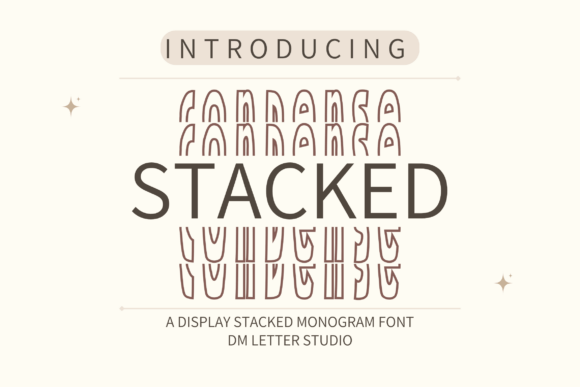
Unleash Timeless Elegance with the Condense Stacked Monogram Font
As a designer, there’s nothing quite like the thrill of discovering a new font that can elevate your projects to the next level. It’s that moment when the perfect combination of style and sophistication comes together, and you know you’ve found something special. For me, that moment arrived when I stumbled upon the Condense Stacked Monogram Font – a slim, chic, and effortlessly elegant typeface that’s been a game-changer for my designs.
This versatile font is expertly crafted to create compelling monogram impressions, making it an ideal choice for everything from wedding stationery to high-end fashion branding. With its streamlined formations and slender width, the Condense Stacked Monogram Font brings a unique touch of stacked elegance to any design project. Whether you’re looking to infuse a dash of timeless sophistication or add a touch of luxury to your branding, this font is sure to impress.
Condense Stacked Monogram Font Key Features
- Unique Stacked Monogram Design: This font features a unique stacked monogram design, where each letter is stacked on top of the other, creating a visually appealing and elegant effect.
- Condensed Style: As the name suggests, the Condense Stacked Monogram Font has a condensed style, making it perfect for use in situations where space is limited, such as in business cards, letterheads, and other promotional materials.
- Legibility and Readability: Despite its condensed style, the font remains highly legible and readable, making it suitable for use in a wide range of applications, from body text to headings.
- Scalability: The font is highly scalable, allowing it to be used in a variety of sizes and resolutions without compromising its quality or legibility.
Designer Review: Condense Stacked Monogram Font
Overall, I think the Condense Stacked Monogram Font is a decent choice for those looking for a unique and modern monogram font. ✨ One of its strengths is its versatility – it can be used for a wide range of applications, from wedding invitations to business logos.
Another advantage is its clean and minimalist design, which makes it easy to read and understand. The stacked monogram layout also adds a touch of elegance and sophistication, making it perfect for formal events or high-end brands.
- Unique and modern design
- Versatile and can be used for various applications
- Easy to read and understand
- Stacked monogram layout adds elegance and sophistication
However, there are some limitations to consider. ⚠️ The font may not be suitable for very small text sizes, as the stacked monogram layout can become difficult to read. Additionally, the font may not be as customizable as some users would like, which could limit its use in certain design applications.
Overall, I would give the Condense Stacked Monogram Font 3.5 out of 5 stars. While it has some great features and can be a great choice for the right project, it may not be the best option for everyone.
Practical Application Guide for Condensed Stacked Monogram Font
The Condensed Stacked Monogram Font is ideal for creating elegant and sophisticated designs.
Use it for:
– Wedding invitations and stationery.
– Luxury brand logos and packaging.
– High-end event promotions and advertising.
For best results, use the font in combination with a high-contrast color scheme and elegant typography.